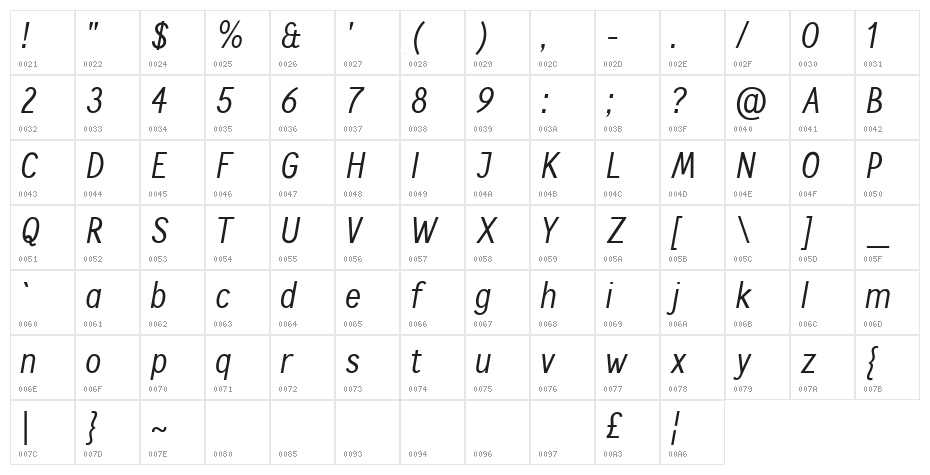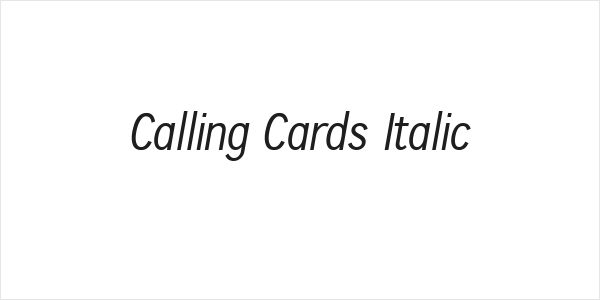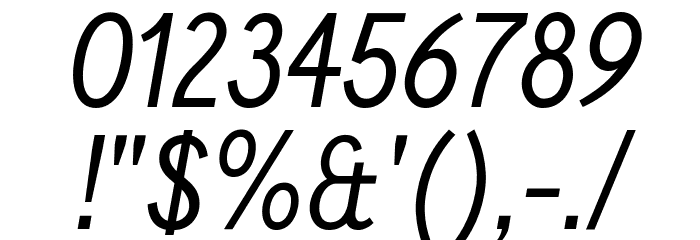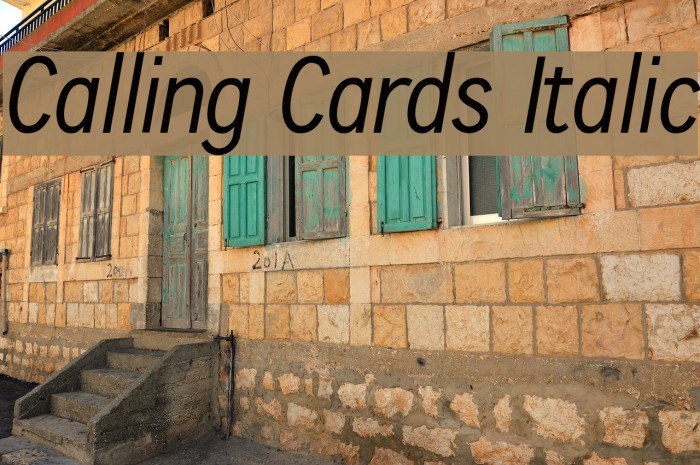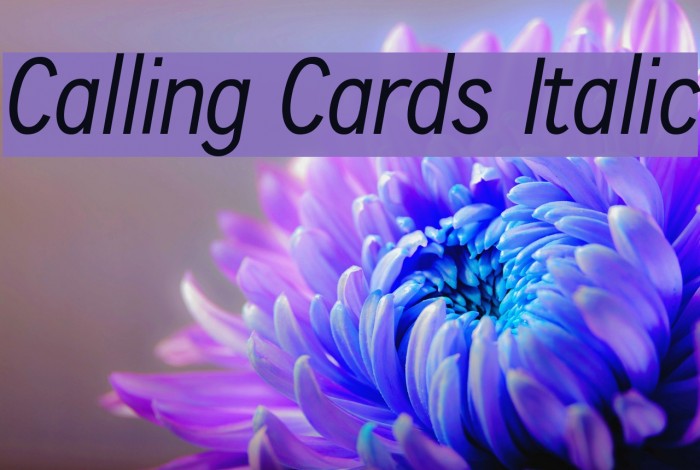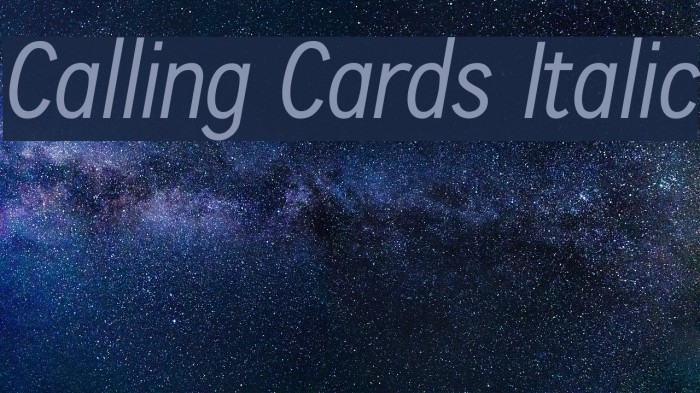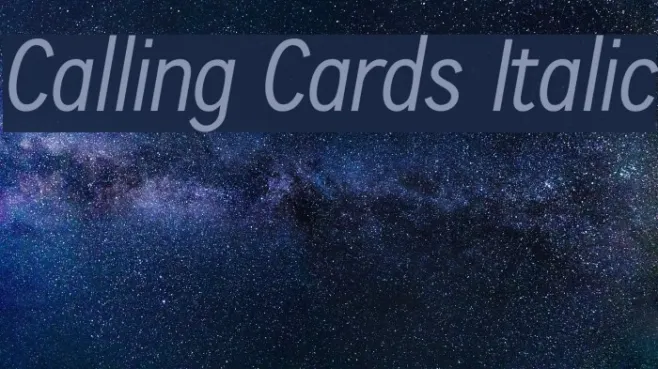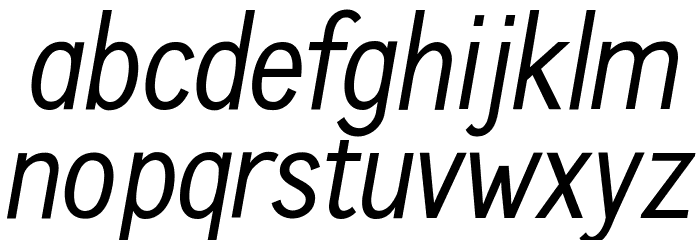
Calling Cards Italic Font
Calling Cards Italic Description
This font exudes a sleek and modern aesthetic with its italicized form, providing a sense of movement and dynamism. The characters are slightly slanted, giving a forward-leaning appearance that suggests elegance and speed. The strokes are clean and consistent, with a medium contrast that ensures readability while maintaining a stylish look. The uppercase and lowercase letters are well-proportioned, and the numerals are clear and distinct. Special characters are included, enhancing its versatility for various design needs. The overall design is minimalistic yet impactful, making it suitable for contemporary projects.
| Proposed Projects | Ideal for branding, advertising, and editorial design where a modern and dynamic look is desired. |